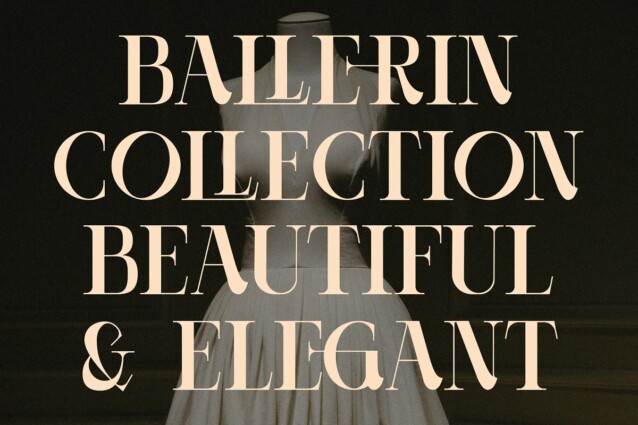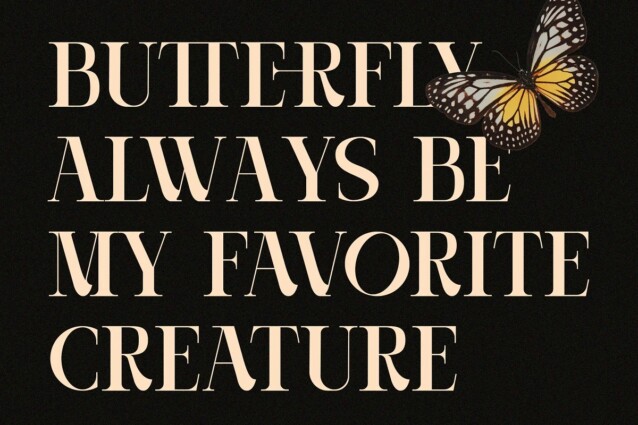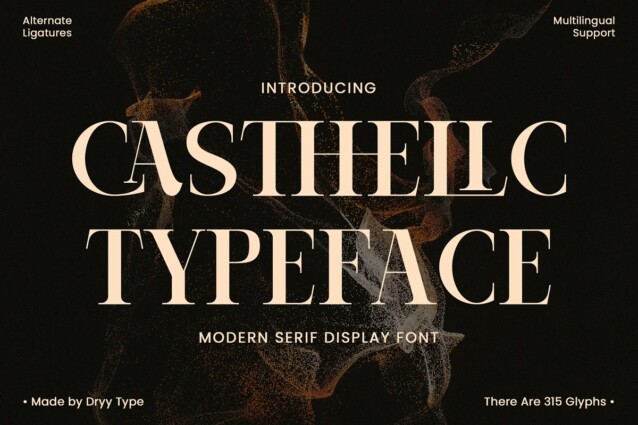
Casthelic Font
Casthelic Font is a modern display serif font that embraces elegance and grace. Made from font designer named Dryy.type. This font is a beautiful choice for any creative endeavor, creating elegant, chic, lifestyle design such as logos, title, cover, branding, display and magazine, and more. Add this font to your favorite creative ideas and watch how it becomes real!